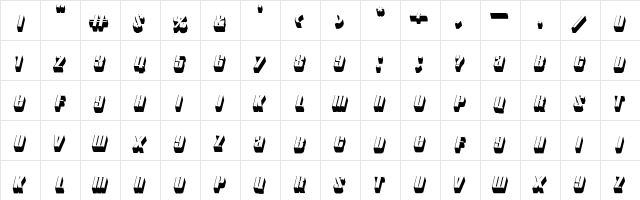
Motorcade Regular
Design Context for Motorcade Typeface
Motorcade is a composed and adaptable typeface that performs quietly and consistently across a wide range of design contexts.